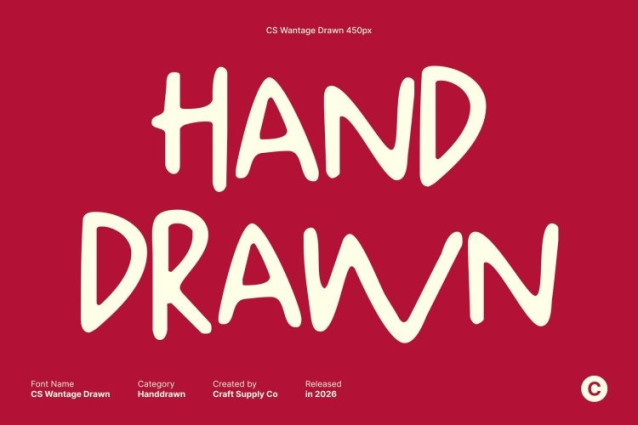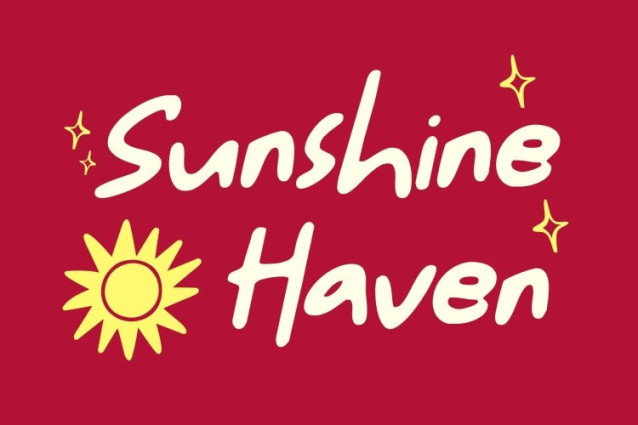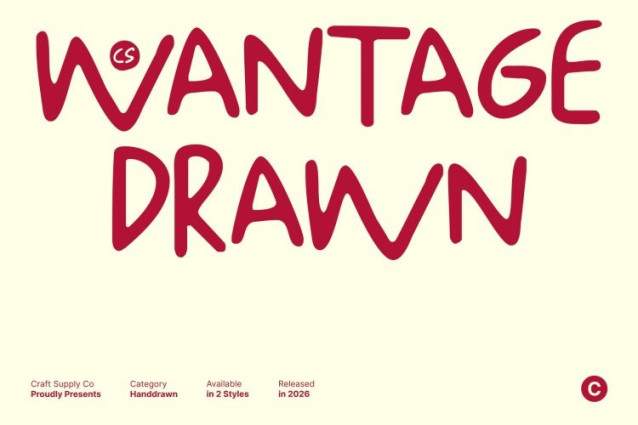
CS Wantage Drawn Font
CS Wantage Drawn Font This is a cheerful and energetic sans serif font designed to express joy, spontaneity, and creativity. Its playful proportions and irregular writing style capture a carefree, childlike spirit, making the font feel friendly, approachable, and full of life. The drawn effect enhances its warmth, giving every letter a lively, human touch.
Irregular Letterforms with Handcrafted Authenticity
Each character features uneven strokes and an imperfect rhythm that create a true hand-drawn feel. These organic details bring motion and personality to the typography, ensuring text feels expressive rather than mechanical. This handcrafted quality makes the font ideal for designs that need charm, warmth, and individuality.
Perfect for Youthful and Creative Visuals
This font works beautifully for children’s branding, educational materials, greeting cards, playful posters, and fun event graphics. Its friendly shapes and dynamic flow help communicate positivity and happiness, making designs feel inviting and engaging.
Versatile Font with Friendly Character
More than just a kids’ font, this font adapts easily to modern playful design needs. From social media content and creative packaging to logos and headlines, it delivers a joyful, imaginative aesthetic that stands out while remaining warm and accessible.